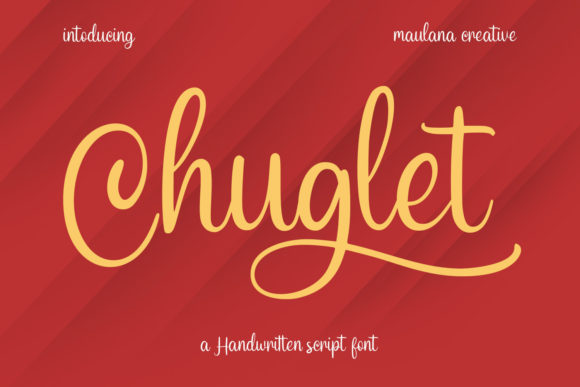
Welcome to the world of Chuglet Font, an exquisite script font poised to ignite your designs with elegance and charm. Chuglet is not merely a font; it's an artistic expression that weaves imagination into reality. With its refined curves and graceful lines, Chuglet possesses an enchanting personality that captivates the audience.
Embark on a typographic journey like no other as you experience the transformative power of Chuglet. Let your designs blossom with creativity as you witness the harmonious dance of letters, each stroke infused with a touch of brilliance. From product packaging that exudes sophistication to branding projects that demand attention, Chuglet stands as your trusted companion, ready to elevate your vision.
Picture the allure of magazine covers adorned with Chuglet's captivating presence. Its enchanting strokes weave a tale of intrigue, inviting readers to delve into the depths of your stories. Let social media posts shimmer with the vibrancy of Chuglet, as your words take on a life of their own, captivating followers with every like and share.
For those special occasions that deserve a touch of magic, Chuglet emerges as the perfect choice. Wedding invitations adorned with its delicate charm become cherished keepsakes, forever etching your love story in the hearts of those who witness it. And as words dance above backgrounds, Chuglet transforms the mundane into the magnificent, leaving an indelible mark of creativity in its wake.
With Chuglet by your side, you'll discover a world where every design tells a story, where every letter becomes a stroke of genius. Embrace the allure of this stunning script font and unlock the boundless possibilities of artistic expression. Chuglet awaits, ready to elevate your designs to new heights of brilliance.